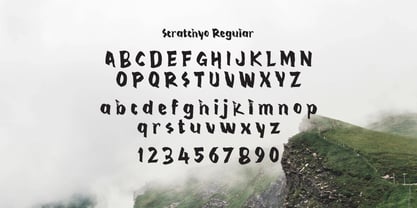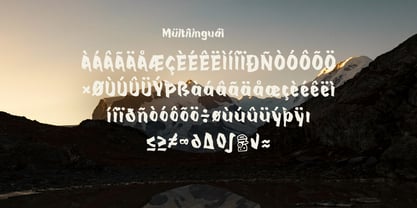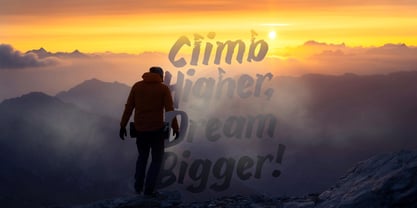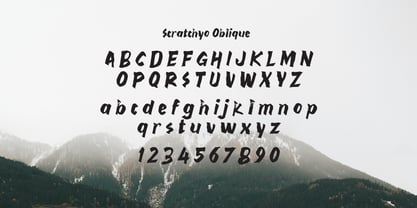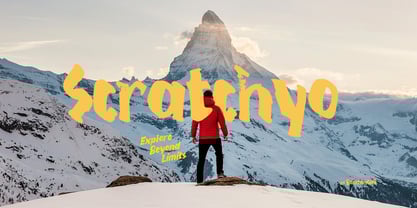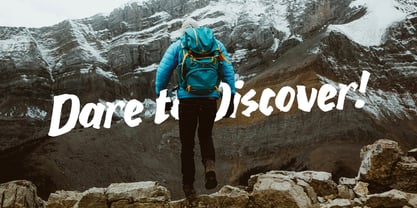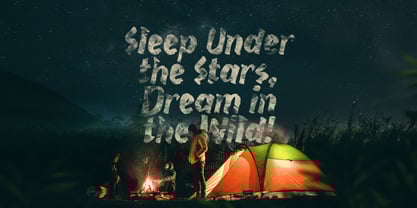
Scratchyo
by BondanGail
The Scratchyo Font Family was designed by Wahyu Eka Prasetya, Bondan Gail Saputro and published by BondanGail. Scratchyo contains 2 styles and family package options.
Scratchyo is a playful, handwritten-inspired font that embodies a sense of adventure and spontaneity. With dynamic shapes and uneven edges, each letter captures the essence of a carefree spirit. The bold and whimsical design, enhanced by splatter textures, invites exploration and creativity. An ideal choice for outdoor and adventure-themed projects, posters, or logos.
Scratchyo includes :
• 2 Style Typefaces (Regular and Oblique)
• Uppercase, Lowercase, Numeral, Symbol and Punctuation
• Multilingual